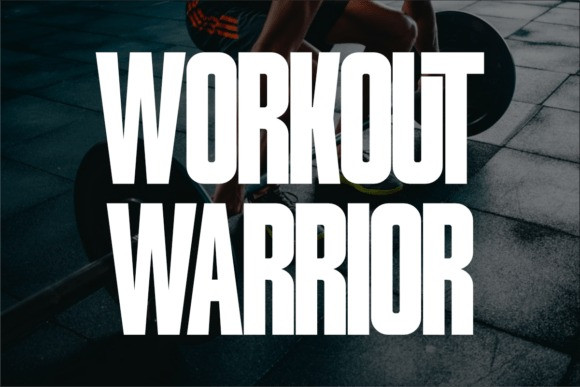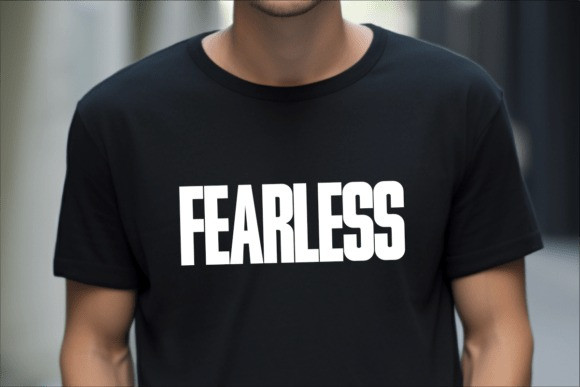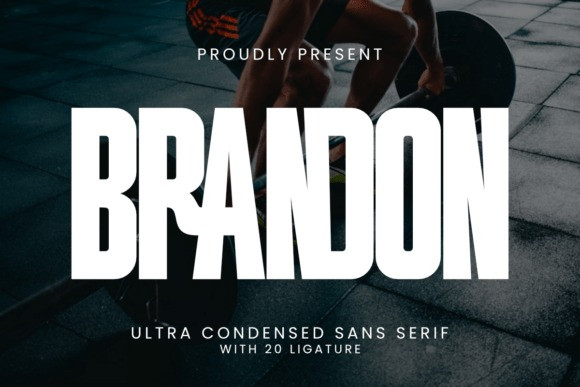
Brandon Condensed Font
Brandon Condensed Font is an ultra-condensed sans serif font with bold and striking letterforms designed to create maximum impact. Its tall and powerful style makes it ideal for t-shirt designs, craft projects, posters, logos, and branding that need a strong modern statement. With clean lines and a contemporary aesthetic, Brandon is perfect for editors, designers, and makers who want their typography to stand out in both digital and print media.